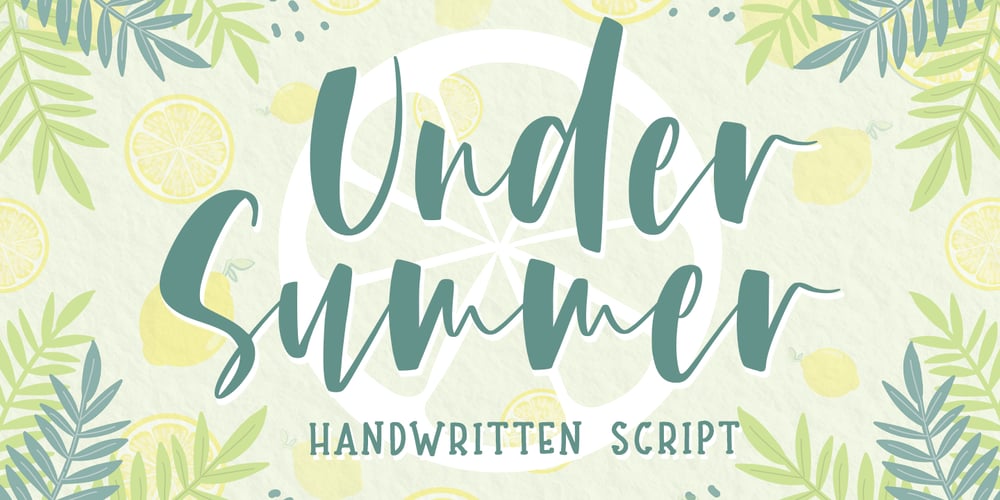
Under Summer Font Family was designed by Abo Daniel and published by Abo Daniel. Under Summer contains 1 styles and family package options. introducingUNDER SUMMER- handwritten script -UNDER SUMMER is natural handwritten font.It is great for quotes, card, banner, book, cutting, silhouette, social media content and anything of your project.I created some ligatures to make it look so natural.Features:- Uppercase- Number & punctuations- Multilingual- PUA encodedI hope you love it…regards,Abo Daniel Studio